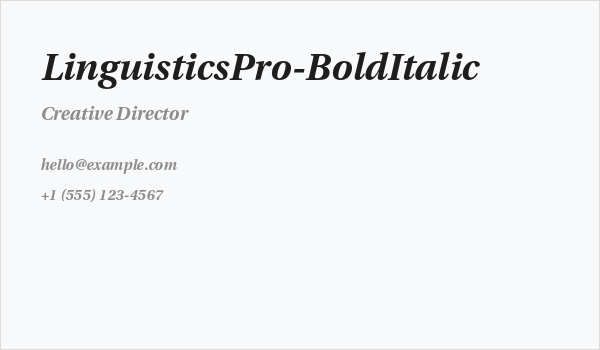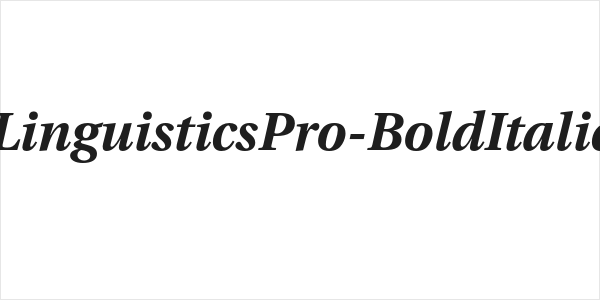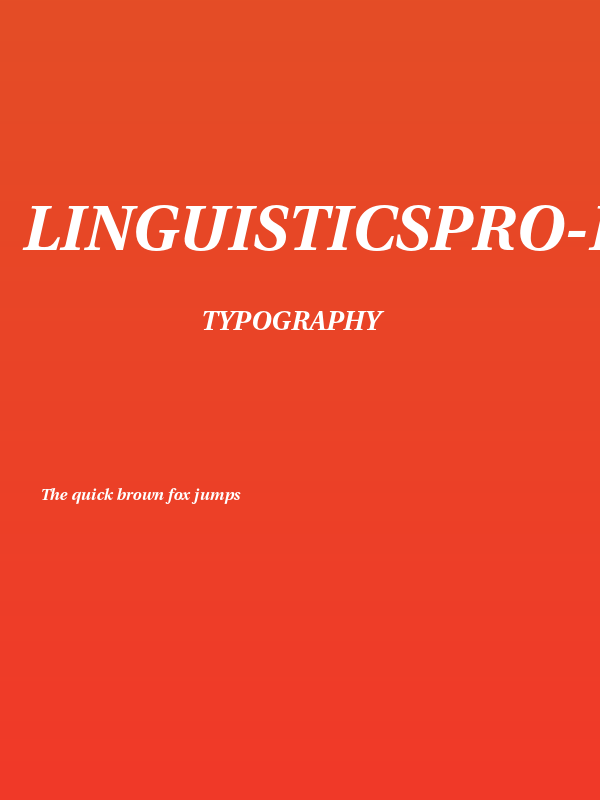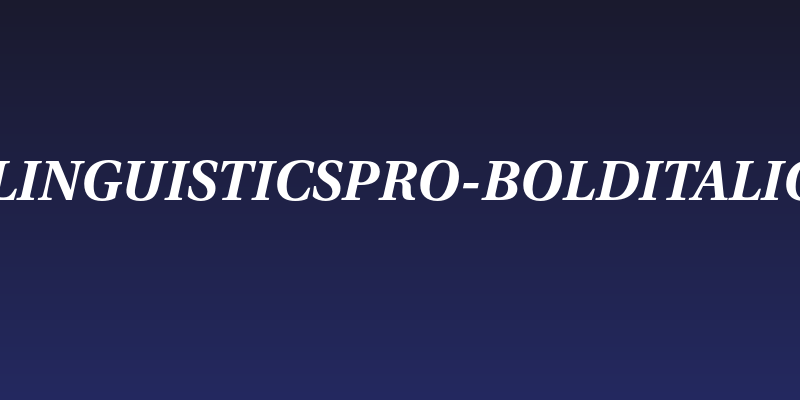
LinguisticsPro-BoldItalic Font
LinguisticsPro-BoldItalic Description
This font exhibits a bold and italicized style, characterized by its strong presence and dynamic slant. The uppercase letters are well-defined with a slight curvature, adding elegance to the overall appearance. The lowercase letters maintain a consistent flow, enhancing readability while retaining a sophisticated look. Numbers are bold and clear, making them suitable for impactful displays. The special characters are distinct and harmonize well with the rest of the font, ensuring versatility in various design contexts. This font's boldness and italic nature make it ideal for attention-grabbing headlines and titles.
| Proposed Projects | Ideal for headlines, branding, advertising materials, and editorial design. |